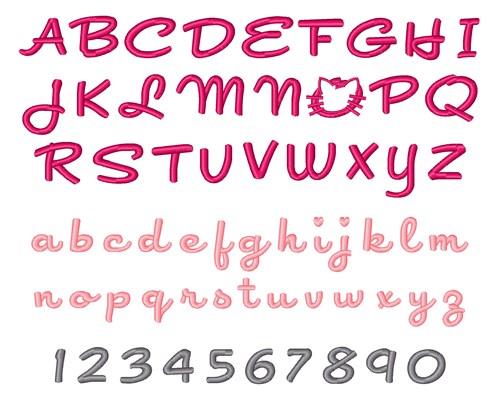
Embroidery Patterns is happy to present Cursive Kitty Embrilliance machine embroidery font which has Playful cursive machine embroidery font in shades of pink with an outline style. Ideal for personalizing kids' clothing or accessories. Available in BX font and Embrilliance formats. included. If you would like to view more embroidery fonts and alphabets please search our embroidery fonts page.